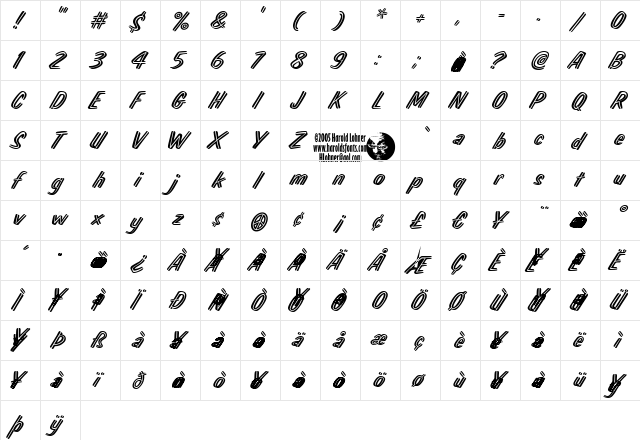
Jest Inline Regular
Design Context for Jest Inline Typeface
Jest Inline brings ornamental detail and strong personality to headlines and identities, where visual impact matters more than quiet functionality.
Font Pairing: Pair with a clean neutral sans-serif for body copy to let Jest Inline's character lead without overwhelming the composition.
Pro Tip: Use Jest Inline exclusively at display sizes — it was designed to be seen, not read at length. Let a neutral companion handle body copy.